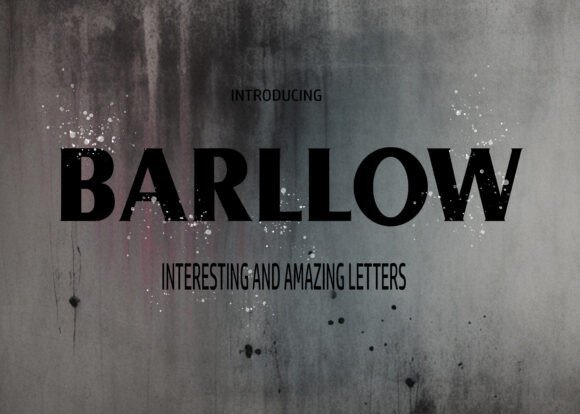
Stand Out with the Bold Barllow Font
You know that moment when you’re brainstorming ideas for a new design project and you need something that screams “I’m here to make a statement!” That’s exactly what the Barllow Font is all about. This font is not for the faint of heart, but for those who dare to be bold and grab attention.
Barllow Font is the perfect solution for designers who want to add a touch of audacity and spirit to their work. Whether it’s a book cover, magazine cover, movie title, t-shirt, or billboard, Barllow Font is sure to make your design stand out from the crowd. With its unique and eye-catching look, you can be sure that your message will be heard loud and clear.
Barllow Font Review
When I first saw the Barllow font, I was immediately drawn in by its unique and modern aesthetic. ✨ The font’s clean lines and geometric shapes make it perfect for digital interfaces and minimalistic designs.
Here are some things that work well with the Barllow font:
- ✨ Universally legible: The font is easy to read, even at small sizes.
- ✨ Highly customizable: Barllow comes with a range of weights and styles, making it easy to adapt to different design needs.
- ✨ Versatile: The font works well in both body text and headlines, making it a great all-around choice.
- ⚠️ Limited expressiveness: The font’s modern aesthetic can sometimes make it feel too sterile or corporate.
- ⚠️ Limited historical context: Barllow doesn’t have the same level of character or personality as some more traditional fonts.
Overall, I think the Barllow font is a solid choice for modern designs. While it may not be the most expressive or historic font out there, its clean lines and versatility make it a great option for digital interfaces and minimalistic designs.
Getting the Most Out of Barllow Font
Barllow Font is a versatile font that can be used in a variety of applications. To get the most out of it, consider the following tips:
- Use Barllow Font for titles and headings to add a touch of elegance and sophistication.
- Pair Barllow Font with other fonts to create a unique and eye-catching combination.
Barllow Font is commonly used in:
Design Projects Using Barllow Font
Project 1: Barllow Typography Poster
The Barllow Typography Poster is a creative project that showcases the unique features of the Barllow Font.